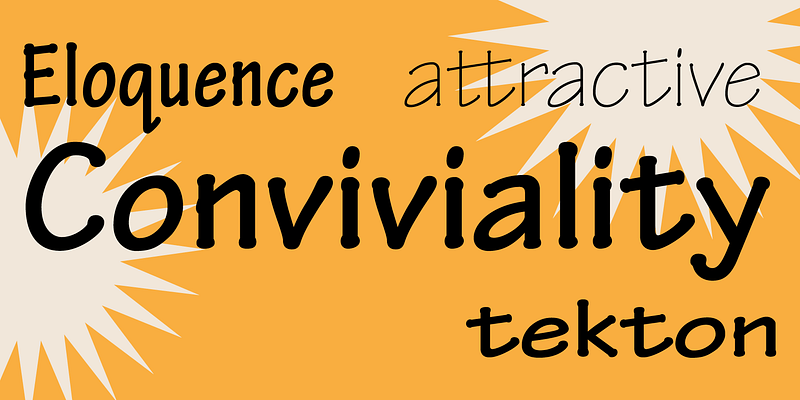
The introduction of Tekton Pro, an Adobe Originals design expanded for OpenType, makes one of Adobe’s most popular typefaces even more useful. Tekton, designed by David Siegel and originally released in 1989, is an Adobe Original type family that is based on the hand-lettering of Seattle-based architect and author Francis D.K. Ching. Although Tekton was initially designed by Siegel, a former draftsman, with architects in mind (Tekton is the Greek word for builder), it quickly found a much broader audience. The simple, clean letterforms work well with architectural and engineering drawings, while the personalized, informal character of the design, combined with its clear legibility, makes it well suited to correspondence, invitations, and signage. Tekton Pro’s variety of weights and widths, greatly expanded character set and more extensive kerning means designers can meet even the most demanding requirements of contemporary graphic design and typography.